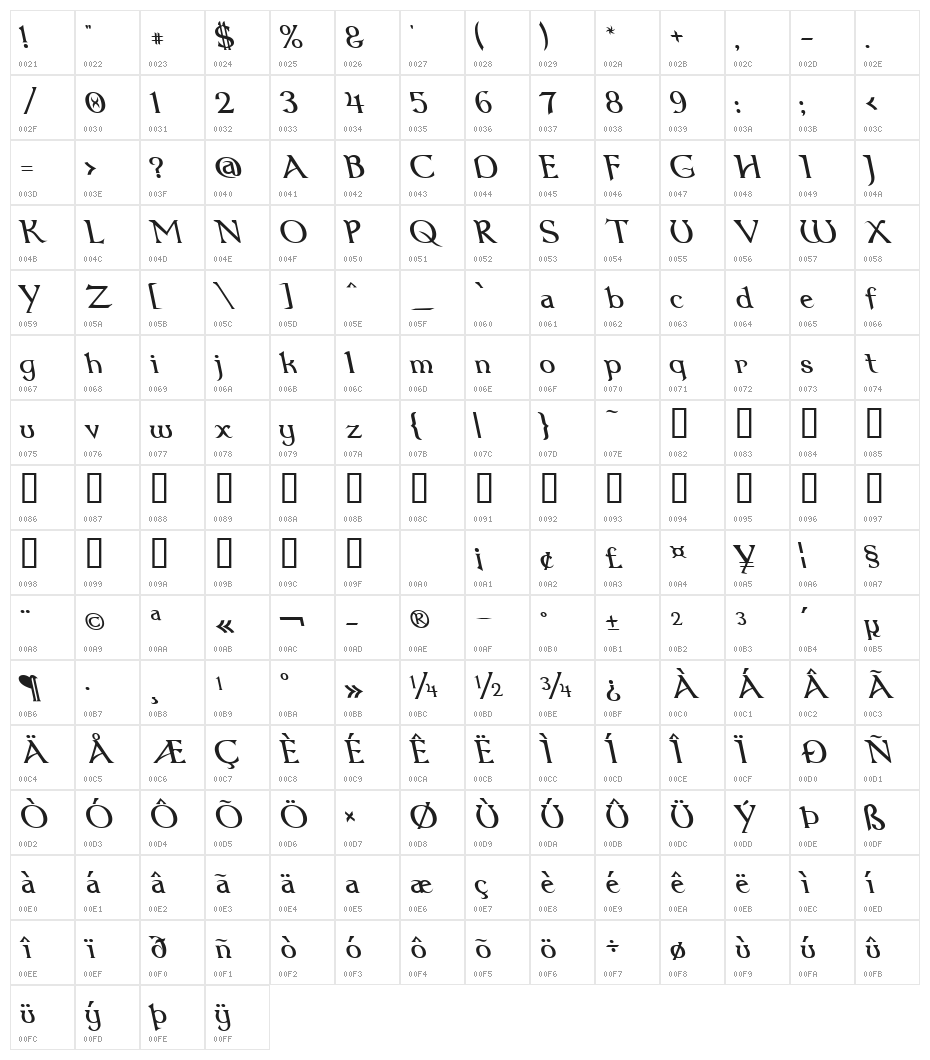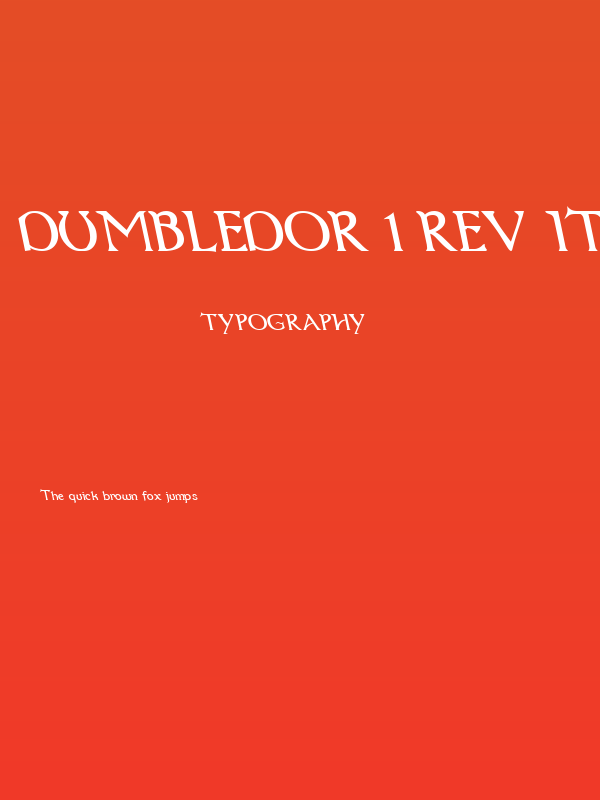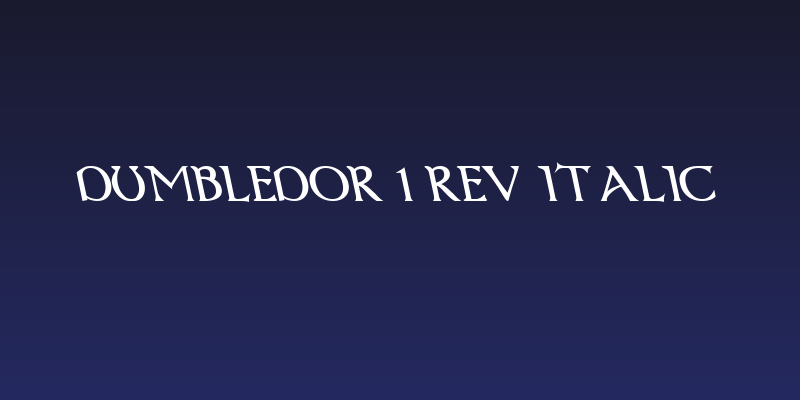
Dumbledor 1 Rev Italic Font
Dumbledor 1 Rev Italic Description
This font features a distinctive and whimsical style with a medieval flair. The characters are slightly italicized, giving them a dynamic and flowing appearance. The uppercase letters have sharp, angular serifs, while the lowercase letters maintain a consistent style with subtle curves and pointed ends. The numerals are bold and maintain the same stylistic elements, ensuring cohesion across all characters. Special characters are uniquely styled, adding to the font's overall decorative nature. The font's playful yet elegant design makes it suitable for projects that require a touch of fantasy or historical charm.